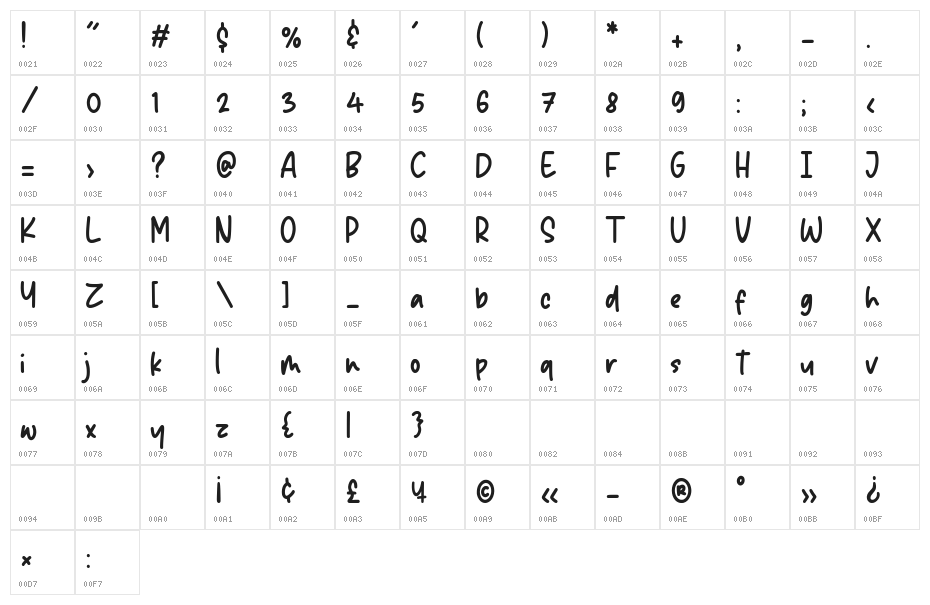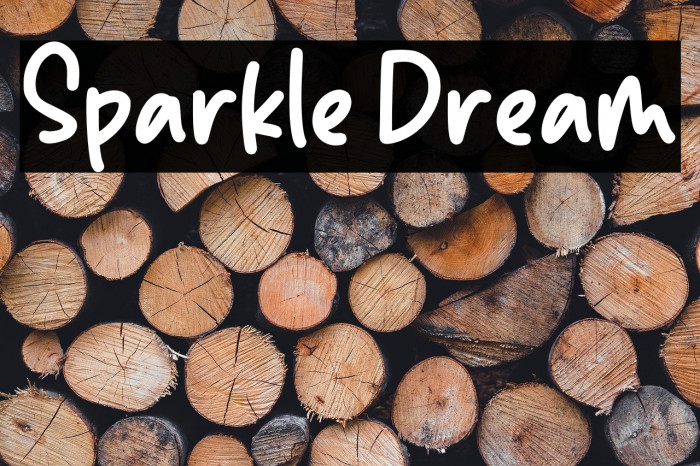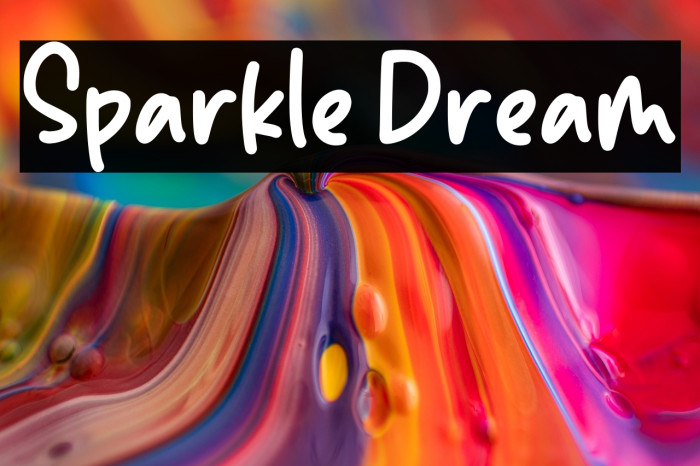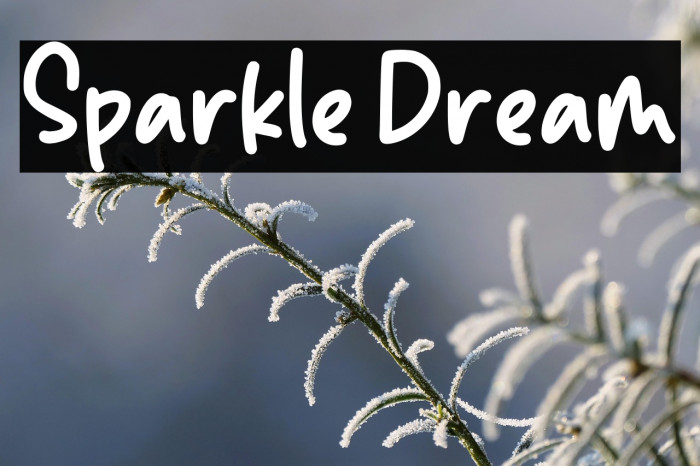
Sparkle Dream Font
Sparkle Dream Description
This playful and whimsical font features a handwritten style with a casual and friendly appearance. The characters are rounded and slightly uneven, giving it a natural and organic feel. The uppercase and lowercase letters maintain a consistent flow, while the numerals and special characters complement the overall style. This font is perfect for projects that require a personal touch or a fun, informal vibe. Its legibility and charm make it suitable for a variety of creative applications.
| Proposed Projects | Ideal for greeting cards, children's books, playful branding, and social media graphics. |